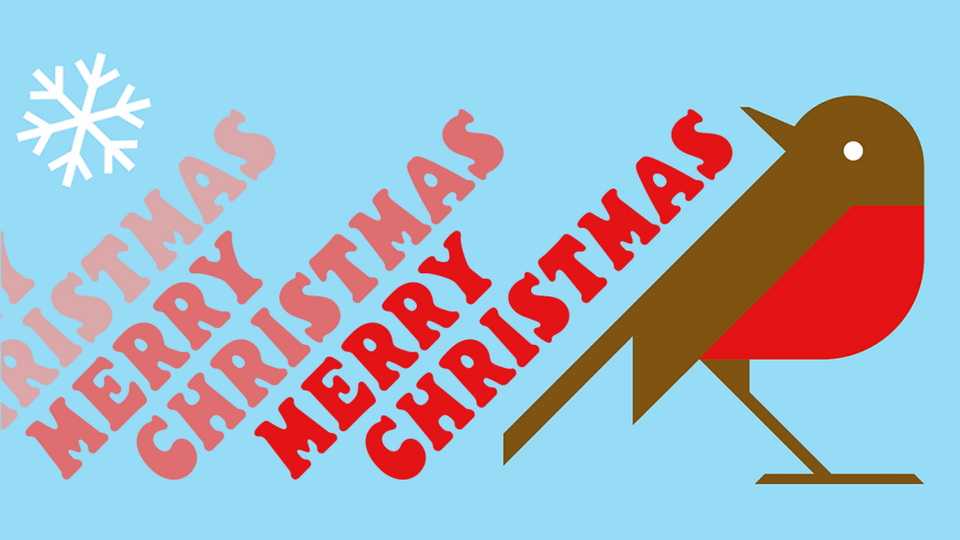
Download Christmas Pudding font a display typeface based on label lettering from a Christmas Pudding produced by the London Transport Food Production Centre, circa 1970.